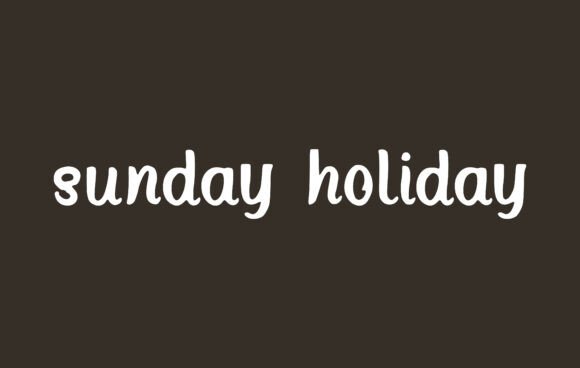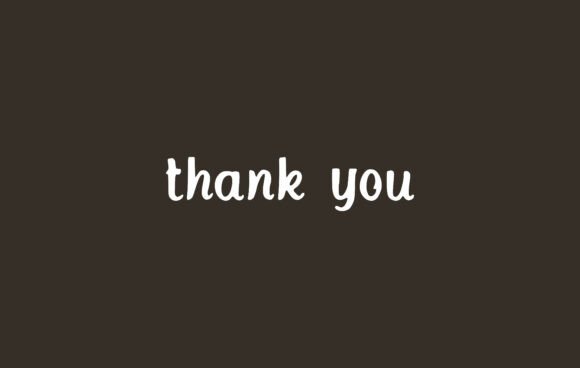
Daffodil Font: A Charming and Whimsical Typeface for Creative Designs
In the world of typography, fonts play a crucial role in conveying the tone and personality of a brand, product, or creative project. One font that has gained significant attention in recent times is the Daffodil Font, a charming and whimsical typeface that has captured the hearts of designers and crafters alike. With its soft curves, playful letterforms, and unique character, Daffodil Font is an excellent choice for creative branding, logos, packaging, and editorial design.
The Unique Character of Daffodil Font
What sets Daffodil Font apart from other typefaces is its distinctive mix of delicate details and bold shapes. The font features soft, rounded curves that give it a friendly and approachable feel, while its bold shapes add a touch of confidence and playfulness. This unique combination makes Daffodil Font perfect for designers who want to create a storybook elegance with a touch of retro charm.
Ideal for Creative Branding and Logos
Daffodil Font is an excellent choice for creative branding and logos, particularly for businesses that want to convey a sense of whimsy and playfulness. The font’s charming and elegant appearance makes it suitable for a wide range of industries, from fashion and beauty to food and lifestyle. With Daffodil Font, designers can create logos that are not only visually appealing but also memorable and engaging.
Packaging and Editorial Design
In addition to branding and logos, Daffodil Font is also ideal for packaging and editorial design. The font’s unique character and playful letterforms make it perfect for creating eye-catching packaging designs that stand out on store shelves. Similarly, Daffodil Font can add a touch of elegance and sophistication to editorial designs, such as magazines, newspapers, and books.
Key Features of Daffodil Font
- Soft curves and playful letterforms: Daffodil Font features soft, rounded curves that give it a friendly and approachable feel.
- Unique character: The font’s mix of delicate details and bold shapes makes it stand out from other typefaces.
- Storybook elegance: Daffodil Font brings a touch of storybook elegance to any design, making it perfect for creative branding and editorial design.
- Retro charm: The font’s bold shapes and playful letterforms add a touch of retro charm to any design.
Tips for Using Daffodil Font
To get the most out of Daffodil Font, here are a few tips to keep in mind:
- Use it sparingly: Daffodil Font is a bold and playful typeface, so use it sparingly to avoid overwhelming the design.
- Pair it with neutral fonts: Pair Daffodil Font with neutral fonts, such as sans-serif or serif fonts, to create a balanced design.
- Experiment with colors: Daffodil Font looks great in a variety of colors, so experiment with different hues to find the perfect combination for your design.
In conclusion, Daffodil Font is a charming and whimsical typeface that is perfect for creative branding, logos, packaging, and editorial design. With its unique character, soft curves, and playful letterforms, Daffodil Font brings a storybook elegance with a touch of retro charm to any design. Whether you’re a designer or crafter, Daffodil Font is an excellent choice for anyone looking to add a touch of whimsy and playfulness to their creative projects.